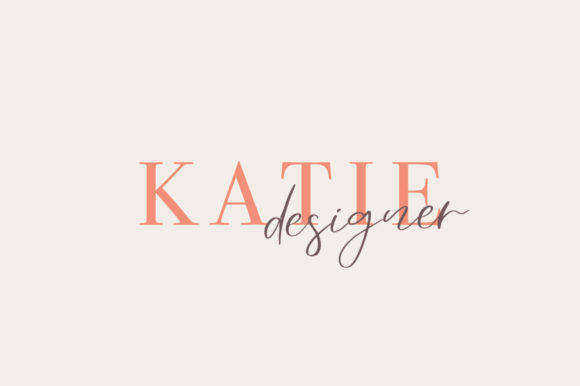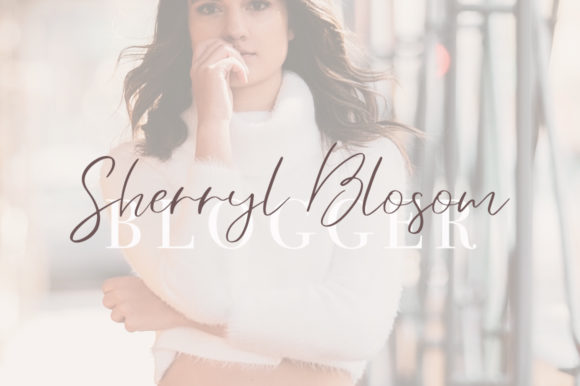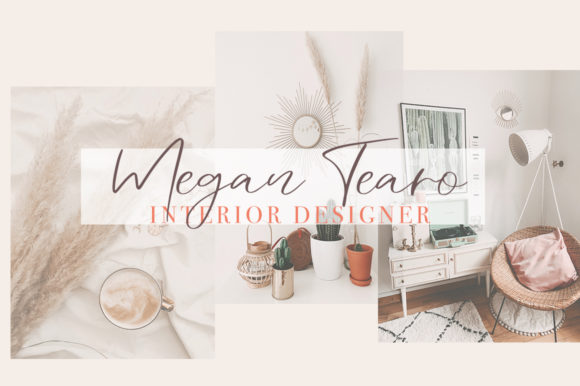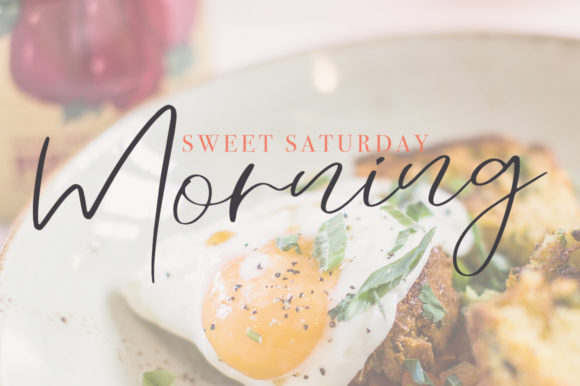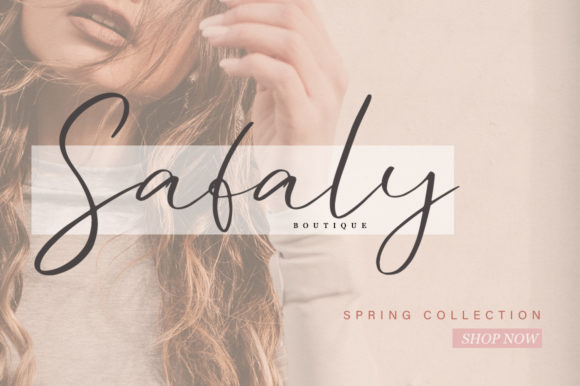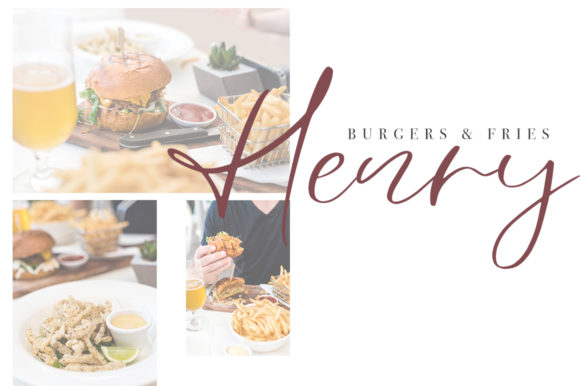
Introduction to Hey Girls Font
As a designer, there’s nothing quite like the thrill of stumbling upon the perfect font to bring your creative project to life. For me, it was a late-night search for a high-quality, handwritten font that would add a touch of elegance to my client’s stationery design. And then, I found it – the Hey Girls Font. With its delicate, cursive lines and transparent background, this font is a true gem that’s sure to elevate any design.
But what sets the Hey Girls Font apart from other design resources is its versatility. Whether you’re looking to create a beautiful letterhead or a stunning title, this font is sure to deliver. And the best part? It’s a free download, making it an invaluable resource for designers of all levels.
About the Hey Girls Font
With its unique blend of classic calligraphy and modern flair, the Hey Girls Font is a must-have for any designer looking to add a touch of sophistication to their creative projects.
Key Features of Hey Girls Font
- High-quality, cursive script font suitable for creative projects, including invitations, posters, and other design resources.
- Features a transparent background, making it easy to use with any image or background.
- Has a medium to large font size, with a height of approximately 1000-1500 pixels, making it suitable for various design applications.
- Has a high resolution of 300 DPI, ensuring crisp and clear text display.
Honest Review: Hey Girls Font
I recently came across the Hey Girls Font, a high quality design resource that’s perfect for any creative project. I was immediately drawn to its modern and playful aesthetic, making it an ideal choice for branding and marketing materials.
One of the standout features of the Hey Girls Font is its transparent background, which allows for seamless integration with any design element. This level of detail is impressive, especially considering it’s a free download.
- High quality design with a modern aesthetic
- Perfect for branding, marketing, and creative projects
- May not be suitable for formal or professional designs
- Limited font sizes and styles available
- Not ideal for text-heavy designs due to its playful nature
Overall, I’m impressed with the Hey Girls Font’s versatility and design quality. While it may have some limitations, it’s a great addition to any designer’s toolkit, especially for creative projects. With its high quality and free download, it’s definitely worth checking out.
The Hey Girls Font is perfect for creative projects such as invitations, social media graphics, and blog posts. Its unique design makes it stand out from other fonts and adds a personal touch to your design project.
Alternatives to Hey Girls Font
Alice Script Font
The Alice Script Font is a high-quality, cursive font ideal for creative projects that require a touch of elegance. This font is perfect for wedding invitations, greeting cards, and other design elements that need a delicate and refined look.
When compared to Hey Girls Font, Alice Script Font offers a more sophisticated and intricate design. While Hey Girls Font is great for casual, everyday use, Alice Script Font is better suited for special occasions and high-end design projects.
The Lato Font is a modern sans-serif font that offers a clean and transparent background, making it perfect for web design and digital projects. This font is ideal for designers who want a high-quality design resource that is both versatile and easy to read.
Lato Font is a great alternative to Hey Girls Font for designers who want a more minimalist and contemporary look. While Hey Girls Font has a more playful and whimsical feel, Lato Font is more professional and sophisticated.
Creamy Font
The Creamy Font is a vintage-inspired script font that is perfect for creative projects that require a warm and inviting tone. This font is great for designers who want to add a touch of nostalgia and personality to their design.
Is the Hey Girls Font suitable for use on a transparent background?
Yes, the Hey Girls Font is designed to be used on a transparent background. Its high-quality design and transparent background make it an ideal choice for creative projects that require a clean and minimalist look. You can use it on a transparent background in design applications like Adobe Photoshop and Illustrator.